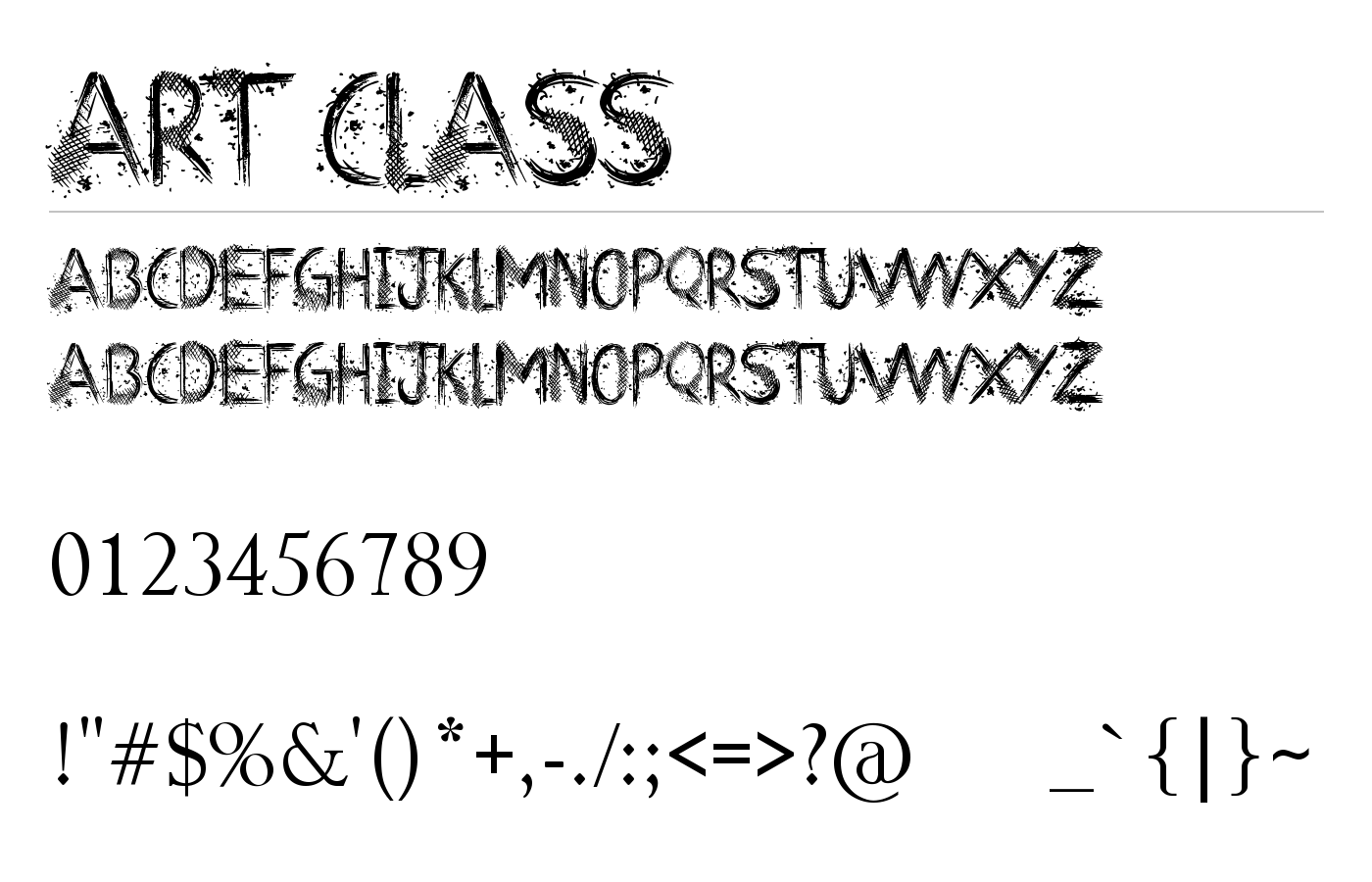
Art Class Font is a unique, distressed sans serif typeface that features a textured, sketch-like appearance, giving it an artistic and hand-drawn feel. Its irregular strokes and rough edges create a dynamic, expressive style suited for creative projects, headlines, or branding that aims to evoke an edgy, handcrafted vibe. This font works well where a bold, visually striking statement is desired, especially in art-related or playful designs.
Art Class Font